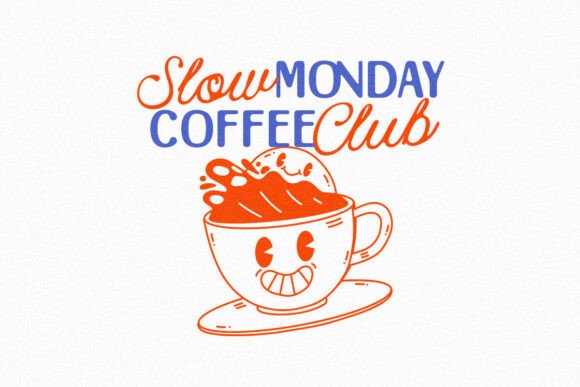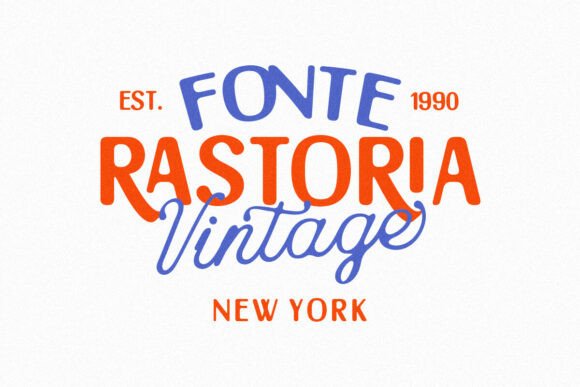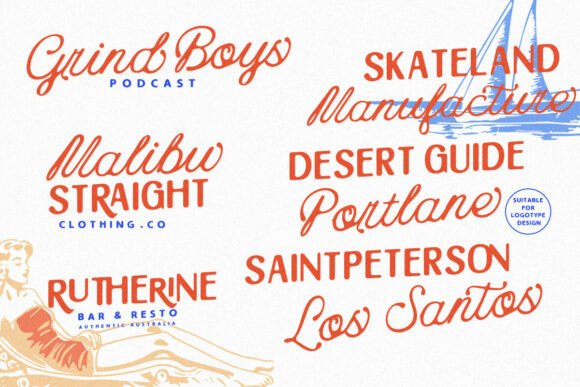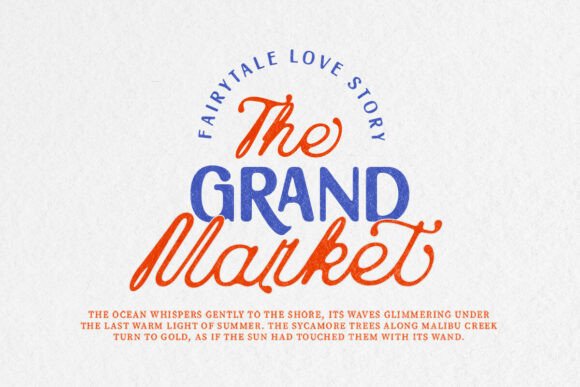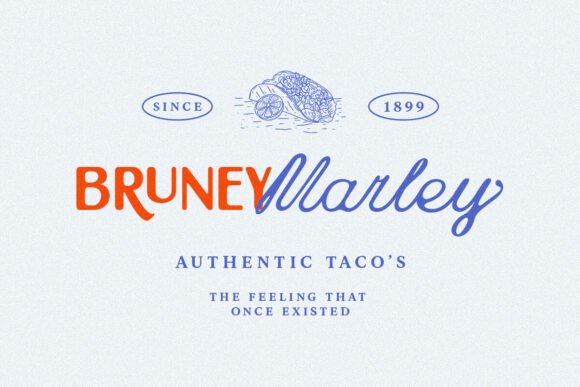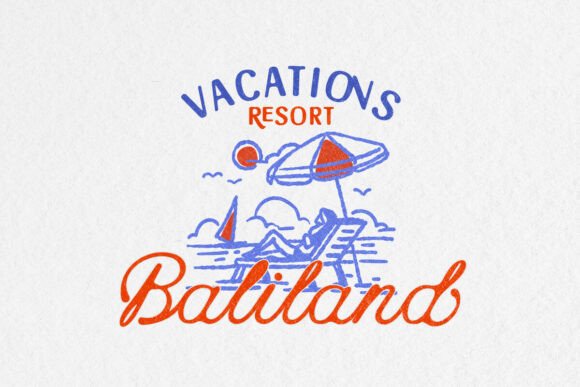
Introducing Esteta Script Duo Font: A Vibrant, Retro-Inspired Typeface
Are you looking for a font that captures the playful, energetic essence of the 1970s and 80s? Look no further than Esteta Script Duo, a powerful duotypeface that combines a smooth, cursive script with a punchy, rounded Sans Serif. This vibrant typeface is perfect for designers and crafters who want to add a bold, fun, and instantly recognizable retro-inspired display to their projects.
A Perfect Blend of Style and Versatility
Esteta Script Duo is a unique combination of two complementary fonts that work seamlessly together. The smooth, cursive script font is brimming with life and features generous loops that add a touch of elegance to any design. Paired with a punchy, rounded Sans Serif font that shares its thickness and confident stance, Esteta Script Duo creates a cohesive and compelling visual identity.
Retro-Modern Styling for a Fresh Look
The Esteta Script font boasts a retro-modern styling that makes it incredibly versatile. Its bold, fun, and playful design makes it perfect for a wide range of applications, from high-impact product packaging and large-scale poster design to cheerful apparel graphics and dynamic social media content. Whether you’re looking to create a bold statement or add a touch of nostalgia to your design, Esteta Script Duo is the ultimate choice.
Essential Stylistic Alternates for Fine-Tuning
To ensure that you can fine-tune your headlines for maximum vintage flair, Esteta Script typeface comes packed with essential stylistic alternates. This feature allows you to customize your text to perfectly capture the essence of your brand or design. With Esteta Script Duo, you can create unique and eye-catching headlines that are sure to grab attention.
Esteta Script Duo font also includes PUA (Private Use Area) encoding, which makes all special characters and decorative elements easily accessible. This feature allows you to unlock the full potential of the font and add a touch of personality to your design. With PUA encoding, you can effortlessly access the font’s extensive character set and create stunning designs that stand out from the crowd.
Esteta Script Duo is the perfect choice for designers and crafters who want to add a bold, fun, and instantly recognizable retro-inspired display to their projects. Its versatility, style, and ease of use make it an excellent addition to any design toolkit. Whether you’re working on a commercial project or a personal craft, Esteta Script Duo is sure to inspire your creativity and help you achieve your design goals.
Key Features of Esteta Script Duo
- Vibrant, monoline combination typeface with a smooth, cursive script and a punchy, rounded Sans Serif
- Retro-modern styling for a fresh and bold take on vintage design
- Essential stylistic alternates for fine-tuning headlines
- PUA encoding for easy access to special characters and decorative elements
- Perfect for high-impact product packaging, large-scale poster design, cheerful apparel graphics, and dynamic social media content